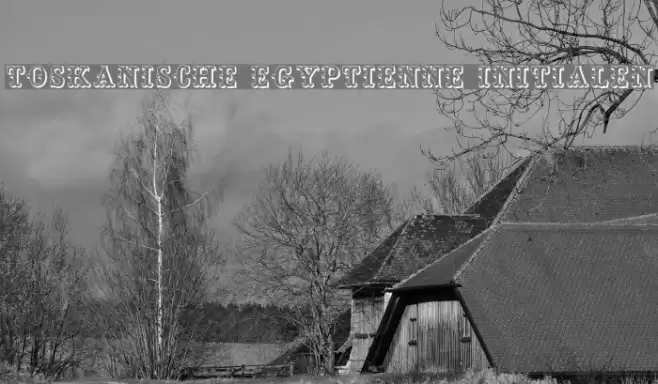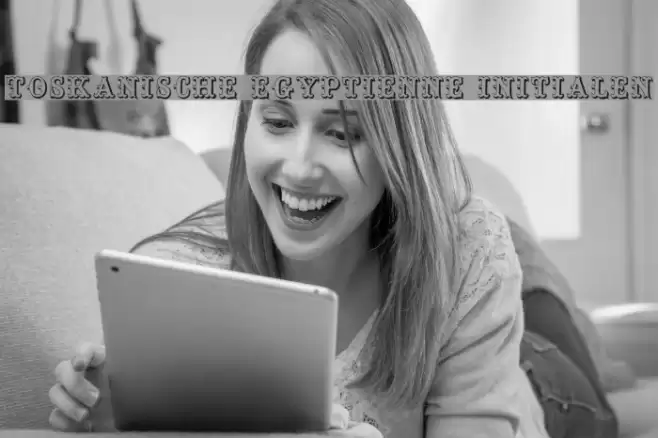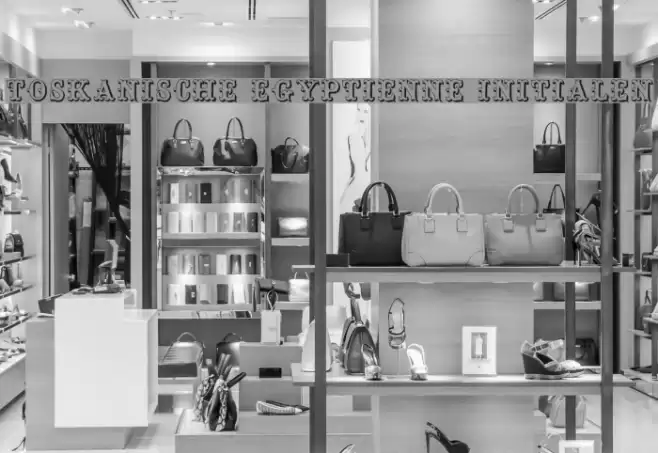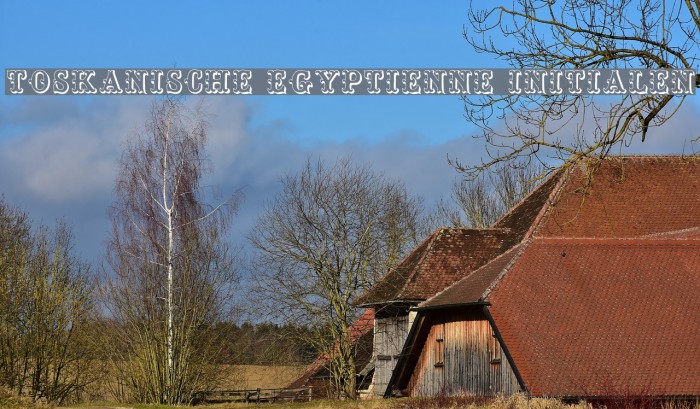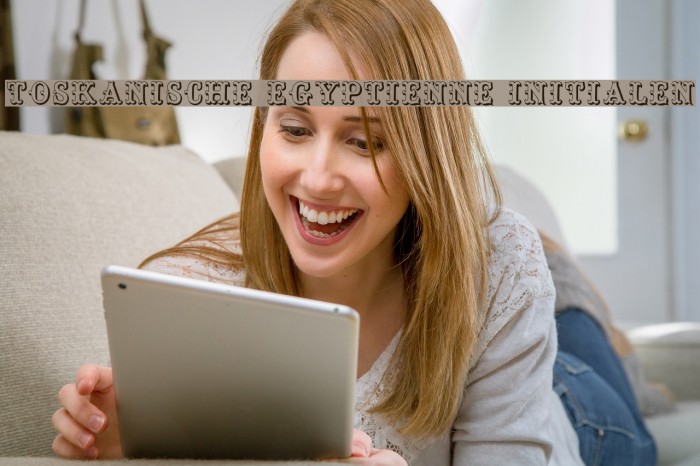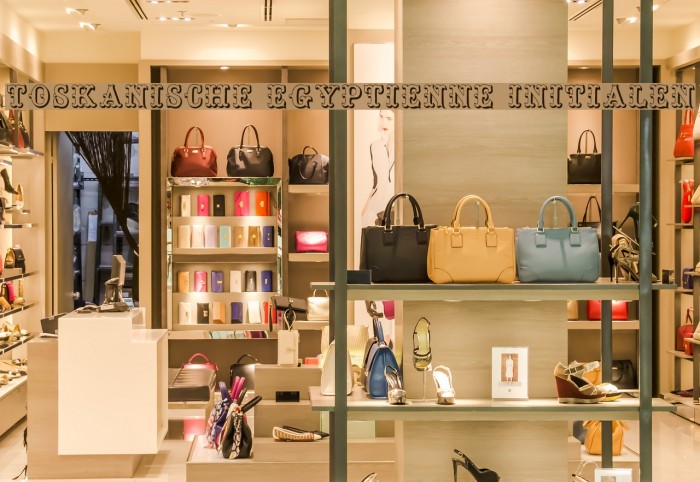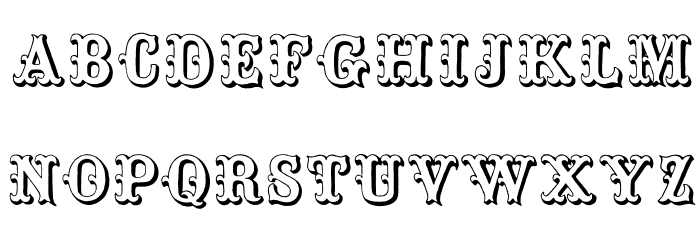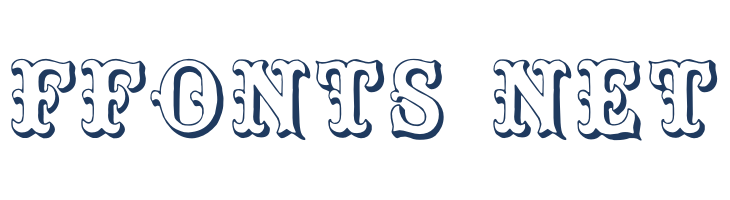
Toskanische Egyptienne Initialen Font
Toskanische Egyptienne Initialen Description
This font features a bold, decorative style with intricate detailing and a strong presence. The letters are characterized by their thick, slab-like serifs and ornate embellishments, giving them a distinctive and eye-catching appearance. The design is reminiscent of vintage or Western typography, often used in signage or posters to convey a sense of tradition and strength. The uppercase letters are uniform in height, with consistent spacing that maintains readability despite the elaborate design. This font is ideal for projects that require a touch of nostalgia or a bold statement.
A bold, decorative font with intricate detailing and slab-like serifs from Retro fonts.
- Proposed Projects: Ideal for vintage-themed posters, signage, branding, and decorative headlines.
- Overall Style: Vintage
- Use Case: Headlines, Logos, Signage